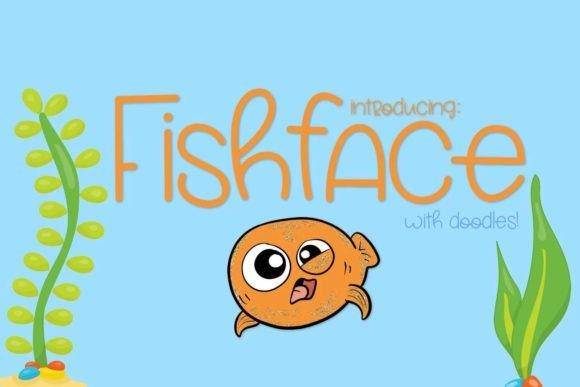
Give Your Designs a Splash of Personality with Fish Face Font
Have you ever been working on a project, and suddenly, a burst of creativity hits you? You’re feeling inspired, and the ideas just start flowing. That’s exactly what happened when designers discovered the whimsical Fish Face Font – a fun, handwritten font with doodles that adds a playful touch to any design.
This charming font is designed to bring a smile to your face and a dash of fun to your projects. Whether you’re creating graphics, logos, or social media posts, Fish Face Font is the perfect addition to add some personality and whimsy. Its unique doodles and handwritten style make it a valuable asset for designers looking to create eye-catching and engaging content.
Fish Face Font Key Features
- Unique Characteristic: Fish Face Font features a unique, hand-drawn design with exaggerated facial expressions, adding a playful and whimsical touch to any text.
Fish Face Font Review
Overall, I think “Fish Face Font” is a unique and playful addition to any design project. ✨ The font’s quirky character and exaggerated features make it perfect for titles, headings, and other design elements where you want to add some whimsy. ✨ The font’s bold lines and vibrant colors also make it great for use in digital design, such as social media graphics and advertisements.
However, there are a few limitations to consider. ⚠️ The font can be overwhelming if used extensively throughout a design, and its busy nature may not be suitable for more formal or professional projects. ⚠️ Additionally, the font’s lack of subtlety can make it difficult to pair with other fonts, which may limit its versatility.
In terms of specific features, here are some pros and cons:
- Unique and playful design
- Perfect for titles and headings
- Great for digital design
- Can be overwhelming if used extensively
- Limited versatility due to busy nature
Overall, I think “Fish Face Font” is a great choice for designers looking to add some personality to their projects. While it may not be suitable for every design, its playful nature and bold features make it a great option for creative and fun projects.
The Fish Face Font is commonly used for:
- Social media graphics and posts.
- Food and drink branding.